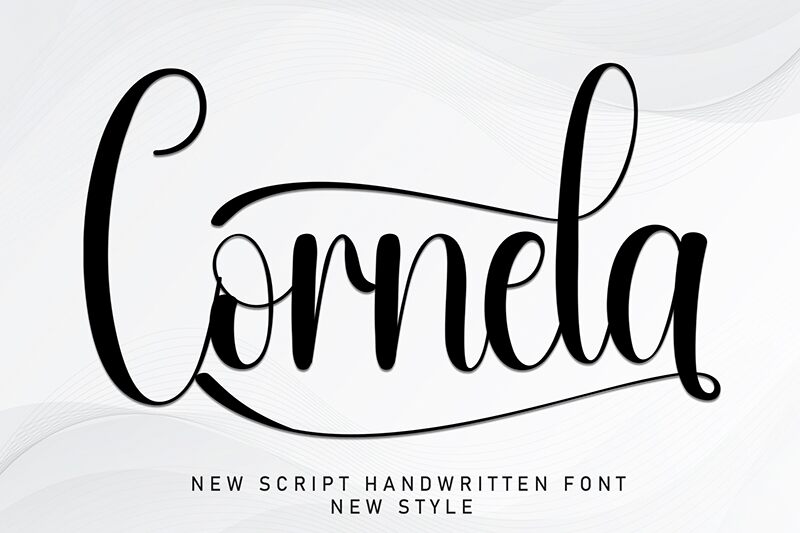
Cornela
Cornela font is a free calligraphy font from Andi Moz with condensed characters and flowing, sophisticated lines. Every letter is connected to each other by sharp caps at the ends and fluid curves in the middle, creating eye-catching ornamental text lines that are easy to read even with this font’s decorative style.